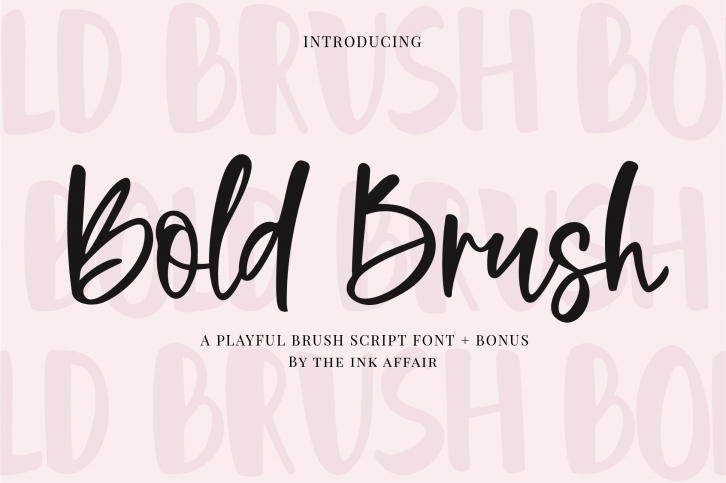
Bold Brush Bonus is a beautiful font that was designed by theinkaffair. It's a great choice for designers and creatives who need such a font. It was released on June 4, 2018 and the file size is 9.49 MB. Bold Brush Bonus may give a more youthful, expressive and casual look to your project. It is a very beautiful, refined, elegant, and high-quality font.